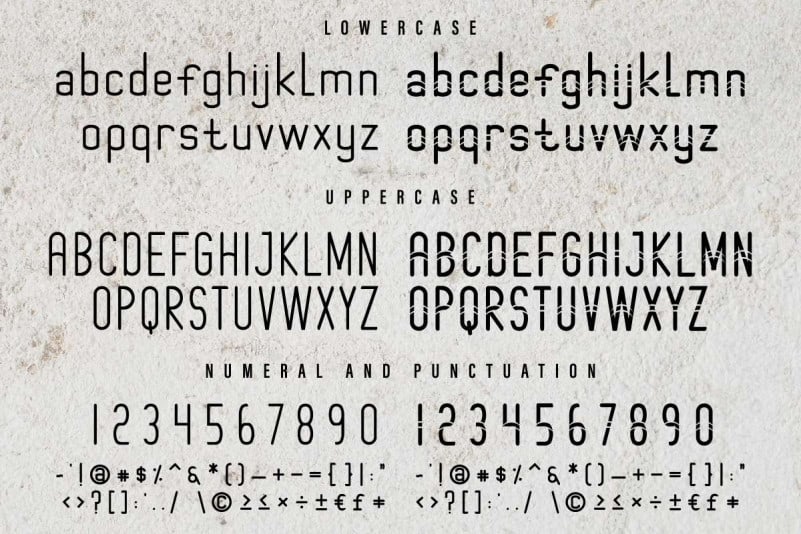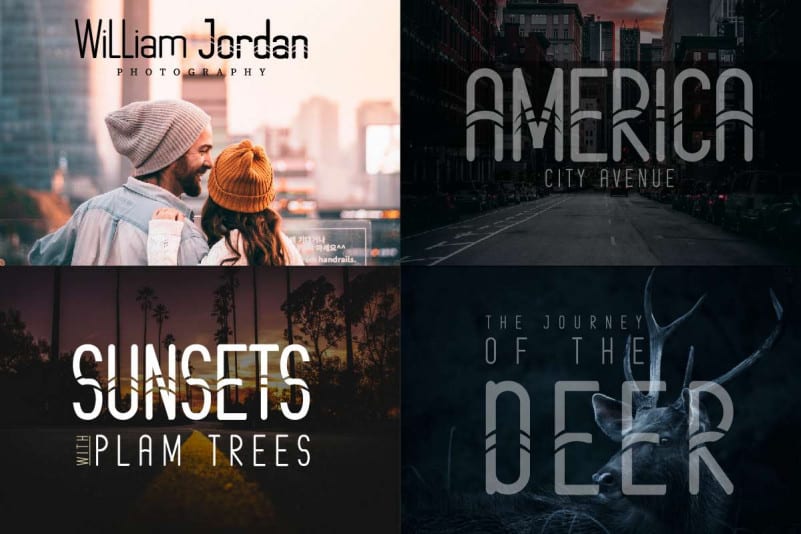
Jane Saloman Sans Serif Font Family
Jane Saloman Sans Serif Font is an exclusive sans serif display typeface with unique modern style. This font has a stunning characters set, perfectly managed with well spaced and kerning. The theme style of this font will be modern, futuristic, stylish, sophisticated and elegant style. You wont find any where else, the font like Alloycia Calligraphy Font.
Jane Saloman Sans Serif Font will be great for any projects including : branding, logo, stationery, business card, signage, flyer, brochure etc. Almost all industries will be match for this typeface: startup, events, real estate, technology, agency, gaming, movie, etc